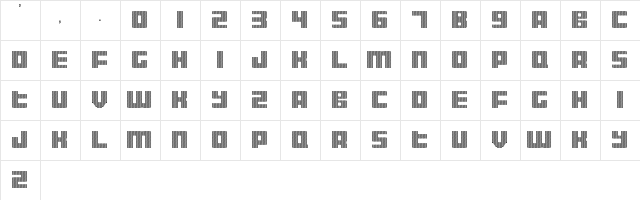
Display Gothic D Regular
| Designer | Wolf Lambert |
Design Context for Display Gothic D Typeface
Display Gothic D is built around its visual character rather than neutral utility — its distinctive forms are designed to make an impression at display sizes.
Font Pairing: Pair with a clean neutral sans-serif for body copy to let Display Gothic D's character lead without overwhelming the composition.
Pro Tip: Treat Display Gothic D as the centrepiece of your typographic hierarchy. One strong heading set in a decorative face can carry an entire layout.